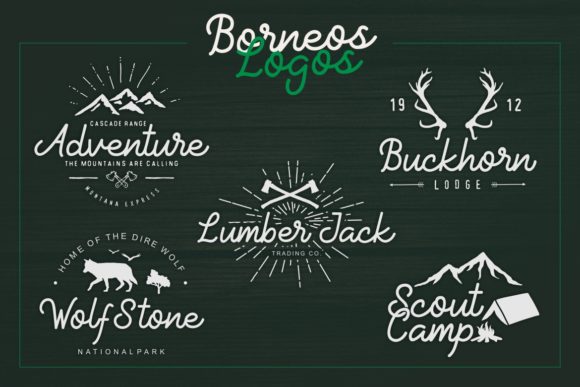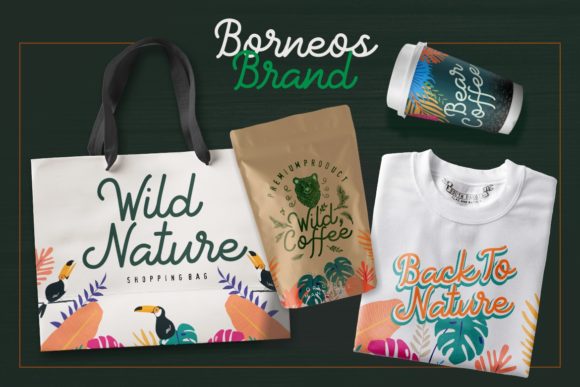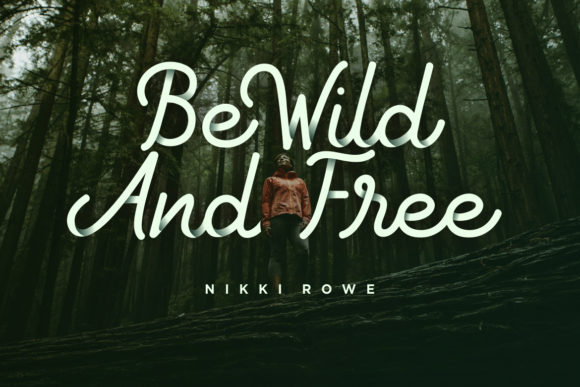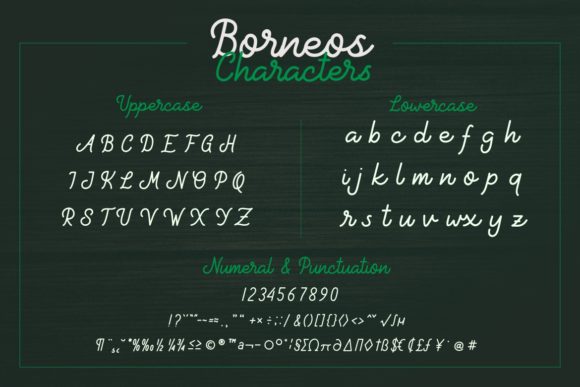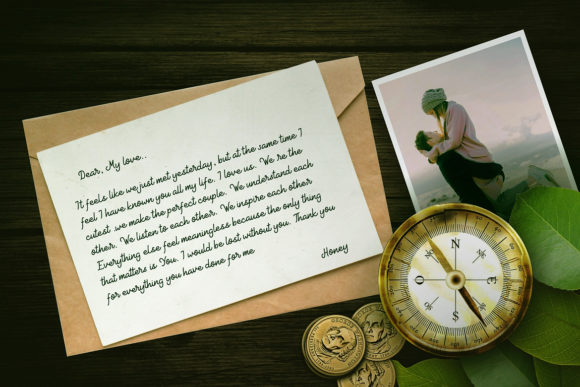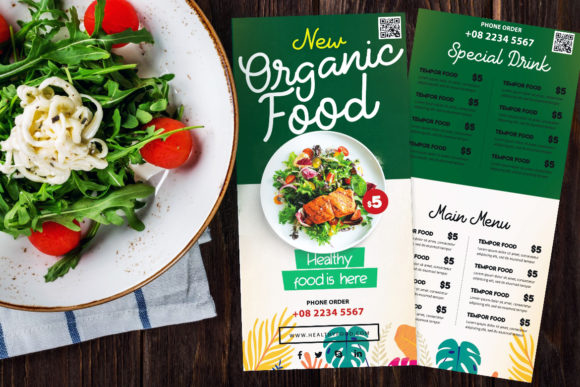
Borneos Font: A Unique Handwritten Style for Your Designs
Are you looking for a font that adds a personal touch to your designs? Look no further than Borneos Font, a beautiful and unique handwritten font that’s perfect for a variety of projects. In this article, we’ll explore the features and benefits of Borneos Font, and show you how it can elevate your designs to the next level.
What is Borneos Font?
Borneos Font is a distinctive handwritten font that’s designed to add a touch of elegance and sophistication to your designs. Its well-rounded letters and flowing lines make it perfect for creating beautiful wedding invitations, thank you cards, quotes, greeting cards, logos, business cards, and more.
Key Features of Borneos Font
- Unique and Interesting Design: Borneos Font has a one-of-a-kind design that’s sure to grab attention. Its distinctive letters and swashes will add a personal touch to your designs and set them apart from the crowd.
- PUA Encoded: Borneos Font is PUA (Private Use Area) encoded, which means you can access all of the glyphs and swashes with ease. This makes it easy to customize your designs and add your own personal touches.
- Handwritten Style: Borneos Font has a beautiful handwritten style that’s perfect for creating designs that look personal and authentic. Its flowing lines and connected letters make it ideal for creating quotes, greeting cards, and other designs that require a personal touch.
Uses for Borneos Font
Borneos Font is a versatile font that can be used for a wide range of design projects. Here are some ideas to get you started:
- Wedding Invitations: Borneos Font is perfect for creating beautiful wedding invitations that set the tone for your special day. Its elegant design and flowing lines make it ideal for creating romantic and sophisticated invitations.
- Thank You Cards: Add a personal touch to your thank you cards with Borneos Font. Its handwritten style and distinctive letters make it perfect for expressing your gratitude and appreciation.
- Quotes and Posters: Borneos Font is great for creating inspiring quotes and posters. Its bold and elegant design makes it perfect for creating eye-catching designs that grab attention.
- Greeting Cards: Create beautiful greeting cards for any occasion with Borneos Font. Its handwritten style and flowing lines make it perfect for creating cards that look personal and authentic.
- Logos and Business Cards: Borneos Font can also be used for creating logos and business cards. Its unique design and distinctive letters make it perfect for creating professional and memorable designs.
Benefits of Using Borneos Font
There are many benefits to using Borneos Font in your designs. Here are a few:
- Adds a Personal Touch: Borneos Font adds a personal touch to your designs, making them look more authentic and unique.
- Versatile: Borneos Font can be used for a wide range of design projects, from wedding invitations to logos and business cards.
- Easy to Use: Borneos Font is PUA encoded, making it easy to access all of the glyphs and swashes.
- High-Quality Design: Borneos Font has a high-quality design that’s perfect for creating professional-looking designs.
Borneos Font is a unique and interesting handwritten font that’s perfect for designers and crafters looking to add a personal touch to their designs. Its distinctive letters and swashes make it ideal for creating beautiful wedding invitations, thank you cards, quotes, greeting cards, logos, business cards, and more. With its PUA encoding and high-quality design, Borneos Font is a great choice for anyone looking to elevate their designs to the next level.